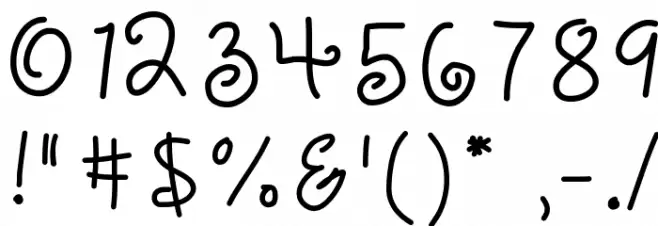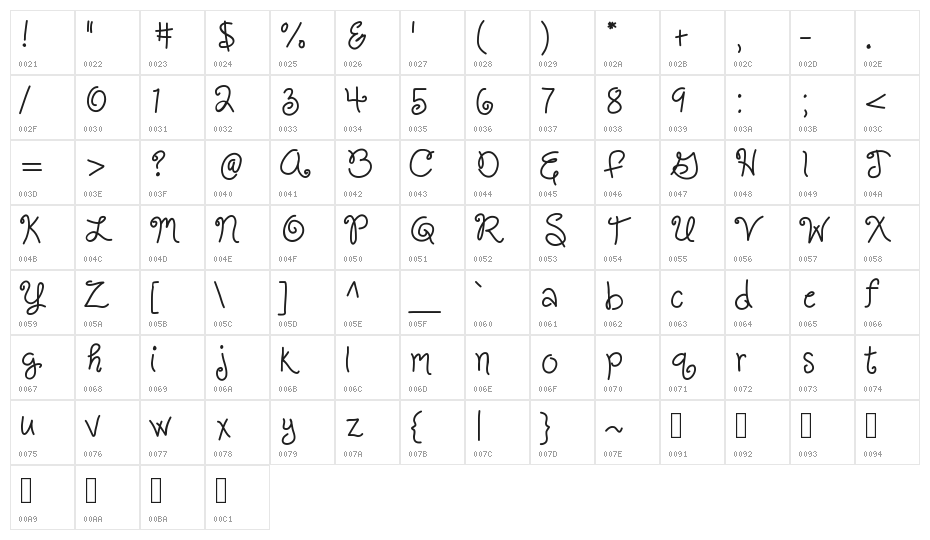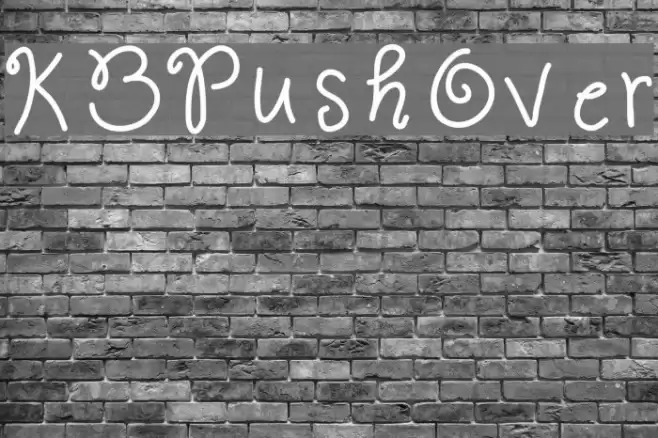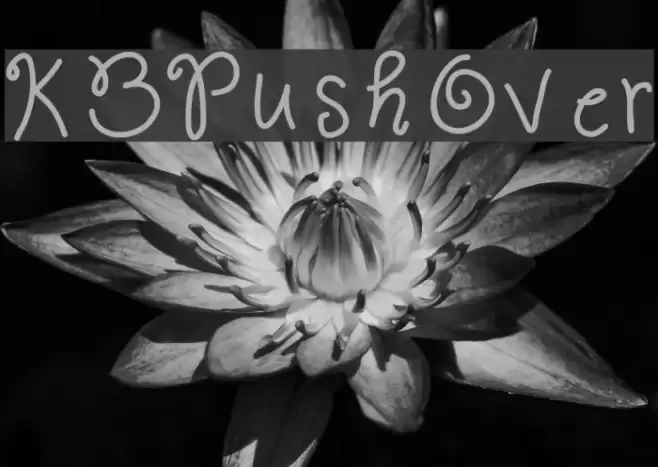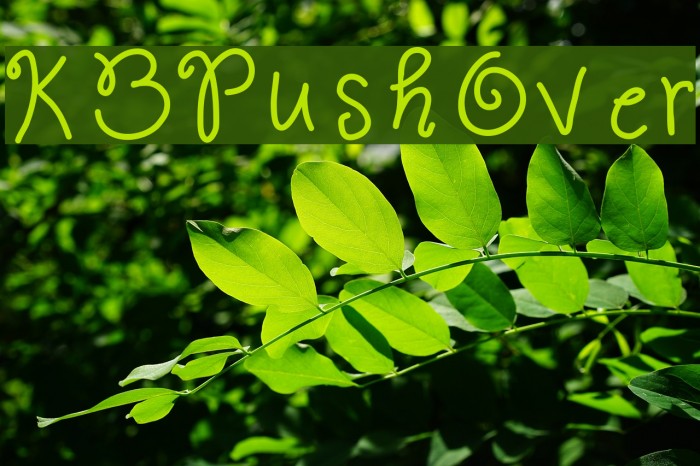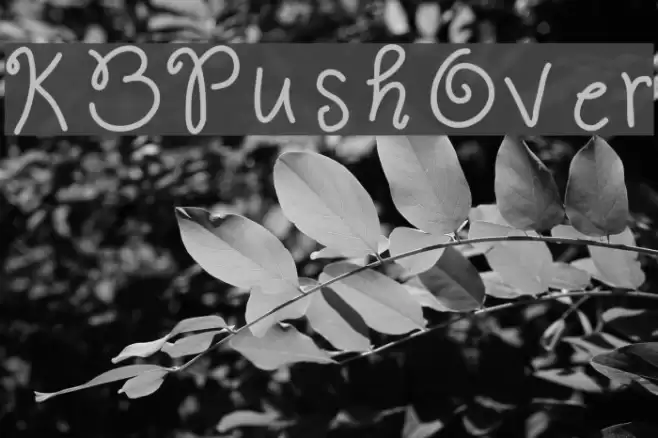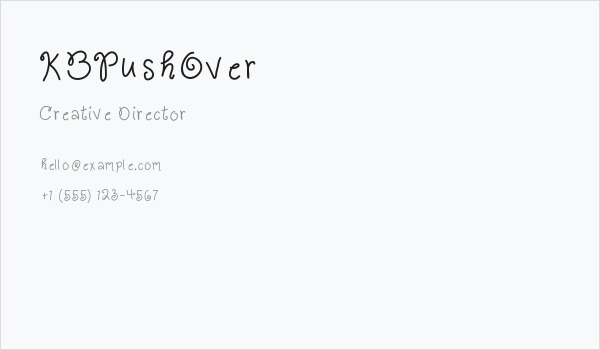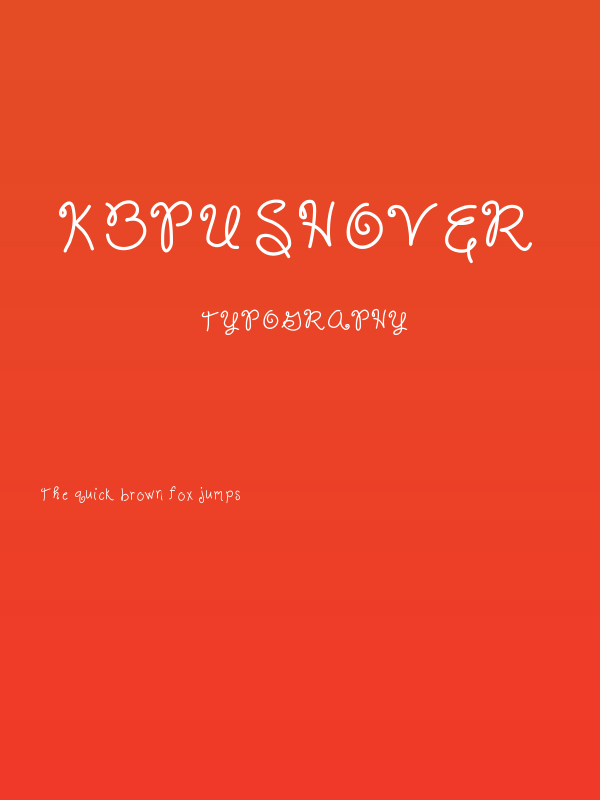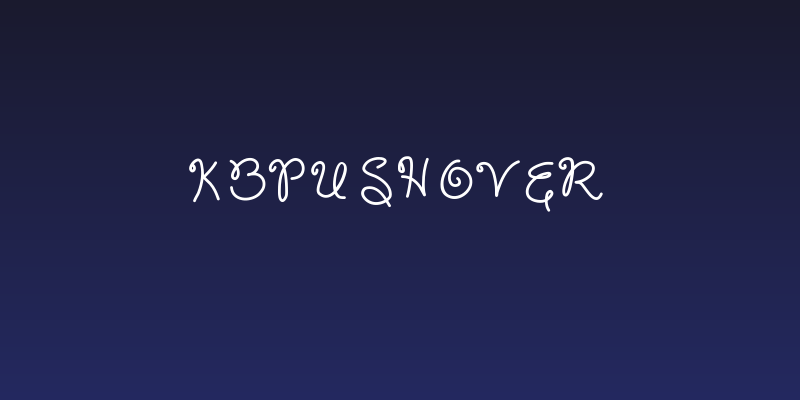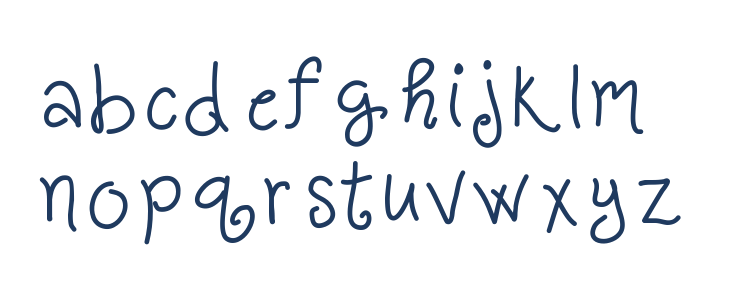
KBPushOver Font
KBPushOver Description
This font features a playful and whimsical style with a handwritten appearance. The characters are curvy and fluid, giving off a casual and friendly vibe. The uppercase letters have a unique flair with varying stroke thickness, while the lowercase letters maintain a consistent flow. The numerals are rounded and match the overall playful aesthetic. Special characters are creatively designed to complement the letters, enhancing the font's cohesive look. This font is ideal for projects that require a personal touch or a fun, informal tone.
| Proposed Projects | Perfect for greeting cards, children's books, playful branding, and informal invitations. |